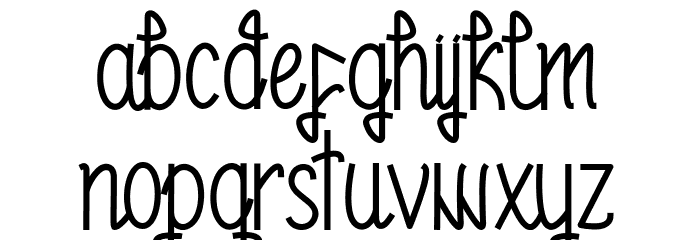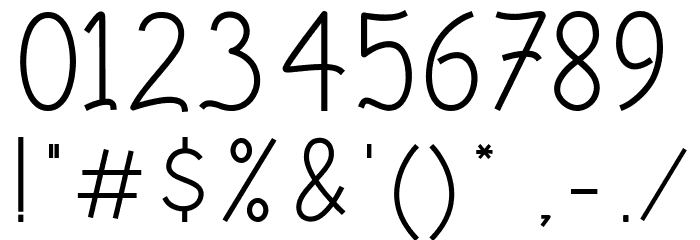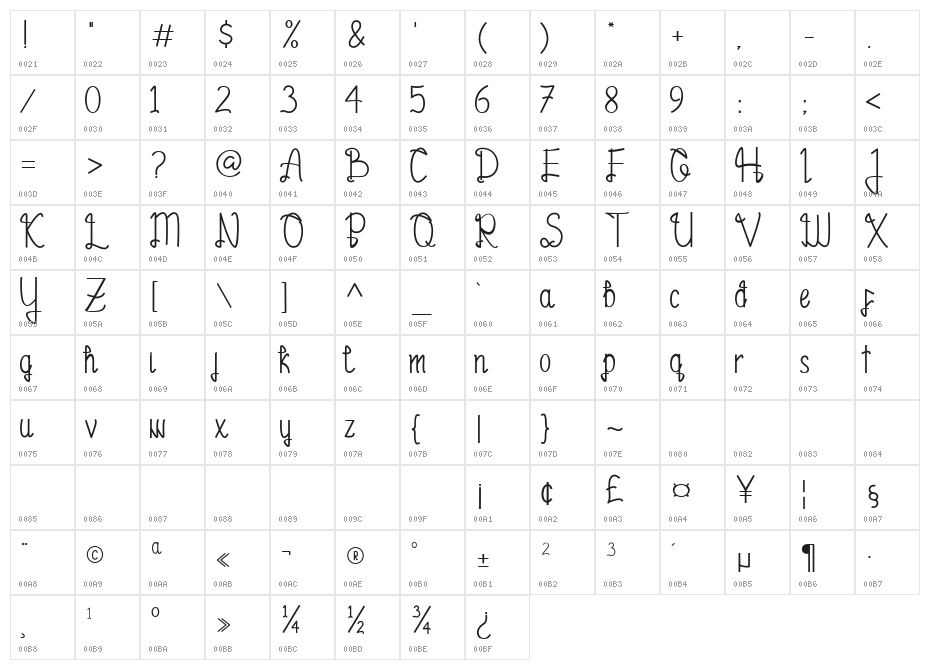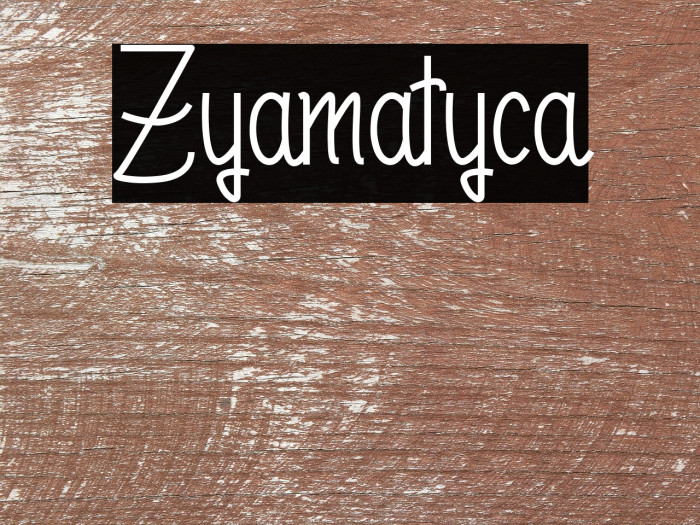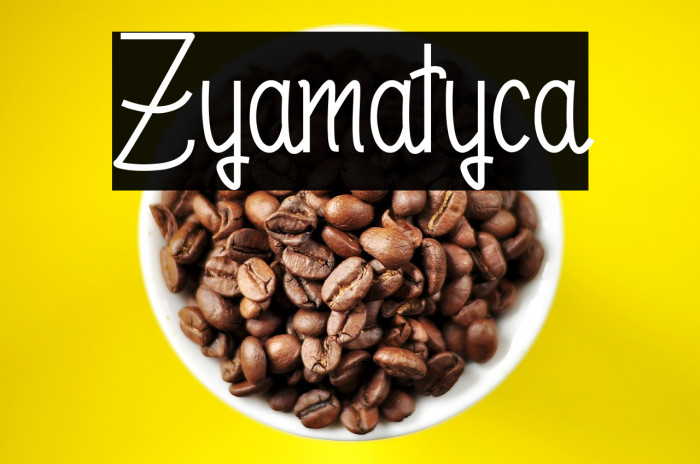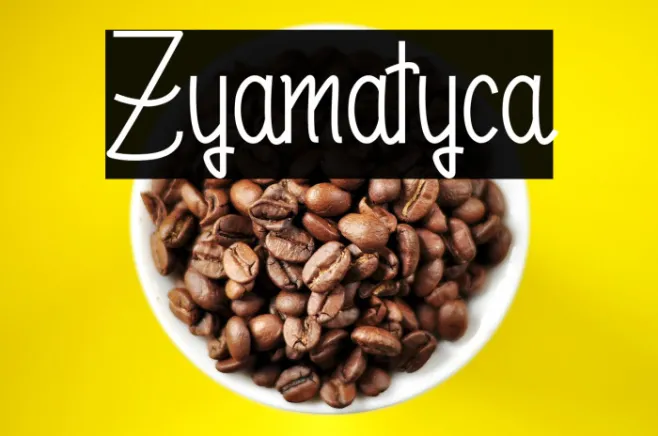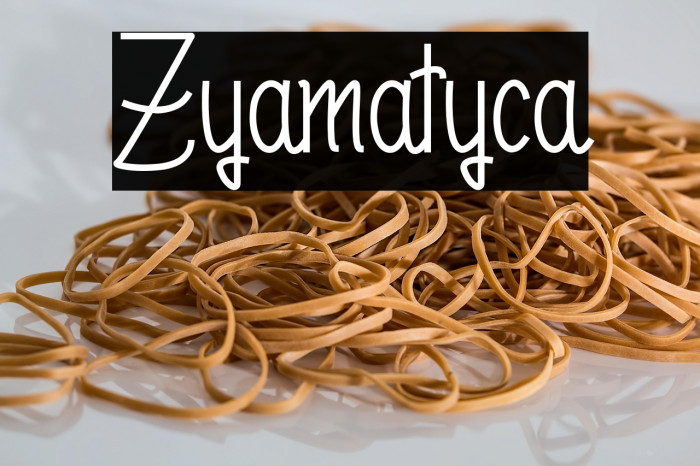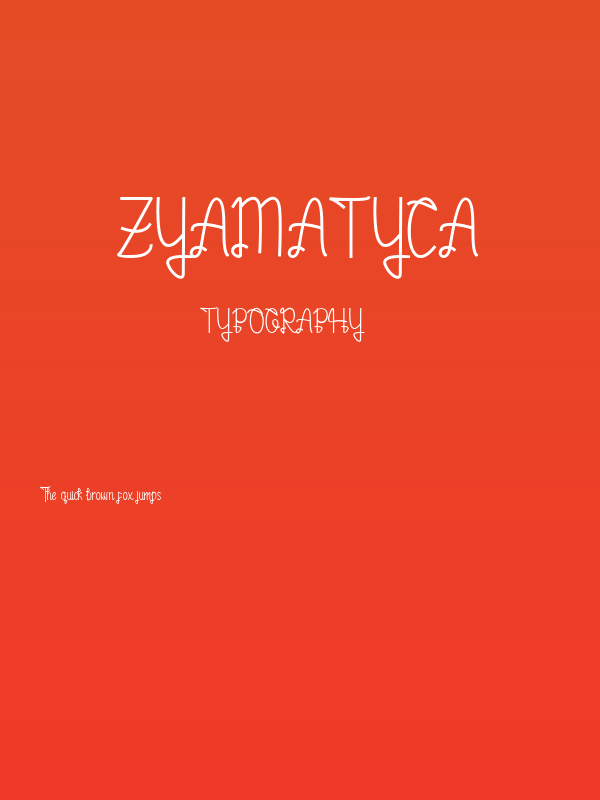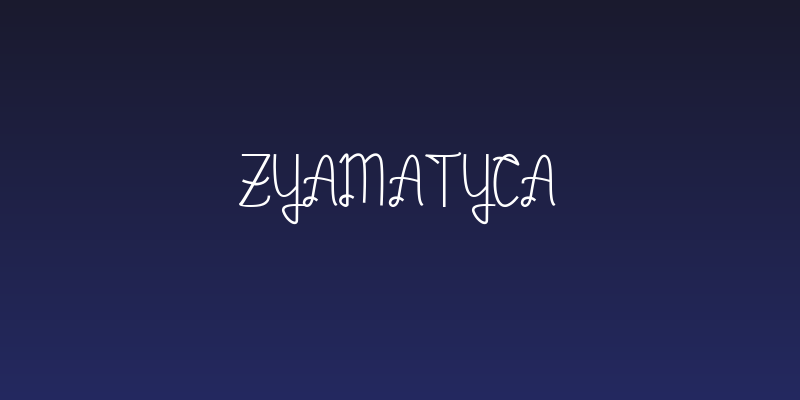
Zyamatyca Font
This font features a whimsical and playful design, characterized by its curly and looping strokes that give it a lively and dynamic appearance. The uppercase letters are particularly ornate, with intricate curls and swirls that add a decorative flair. The lowercase letters maintain a similar style, though they are slightly more restrained, providing a nice balance. The numerals are clear and consistent with the overall style, while the special characters integrate seamlessly with the rest of the font. This font's unique and artistic design makes it stand out, offering a creative and fun option for various design projects.
A whimsical and playful font with curly, looping strokes and decorative flair.
- Font: Zyamatyca
- Proposed Projects: Ideal for greeting cards, invitations, children's books, and playful branding projects.
- Use Case: Headlines, Logos, Invitations